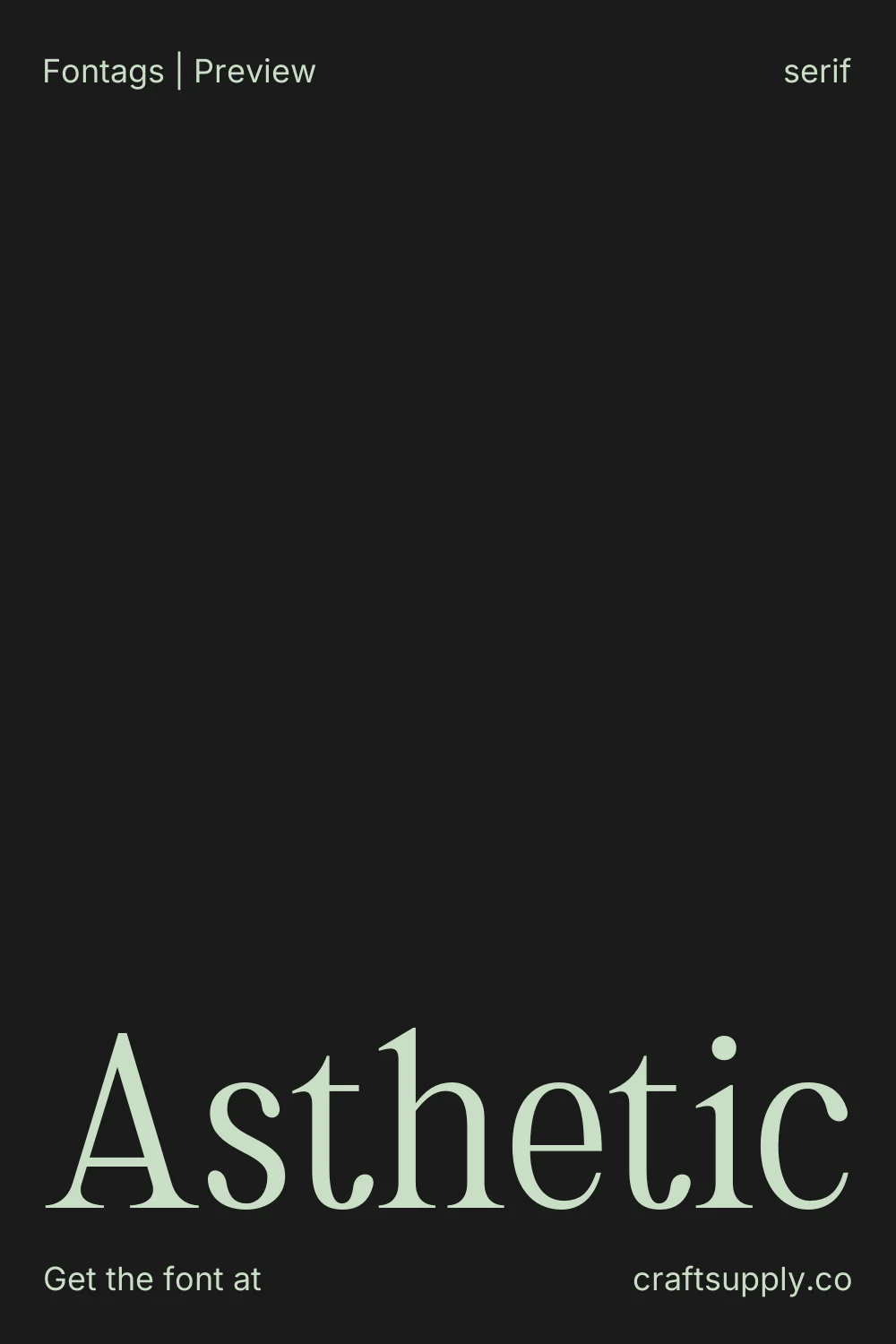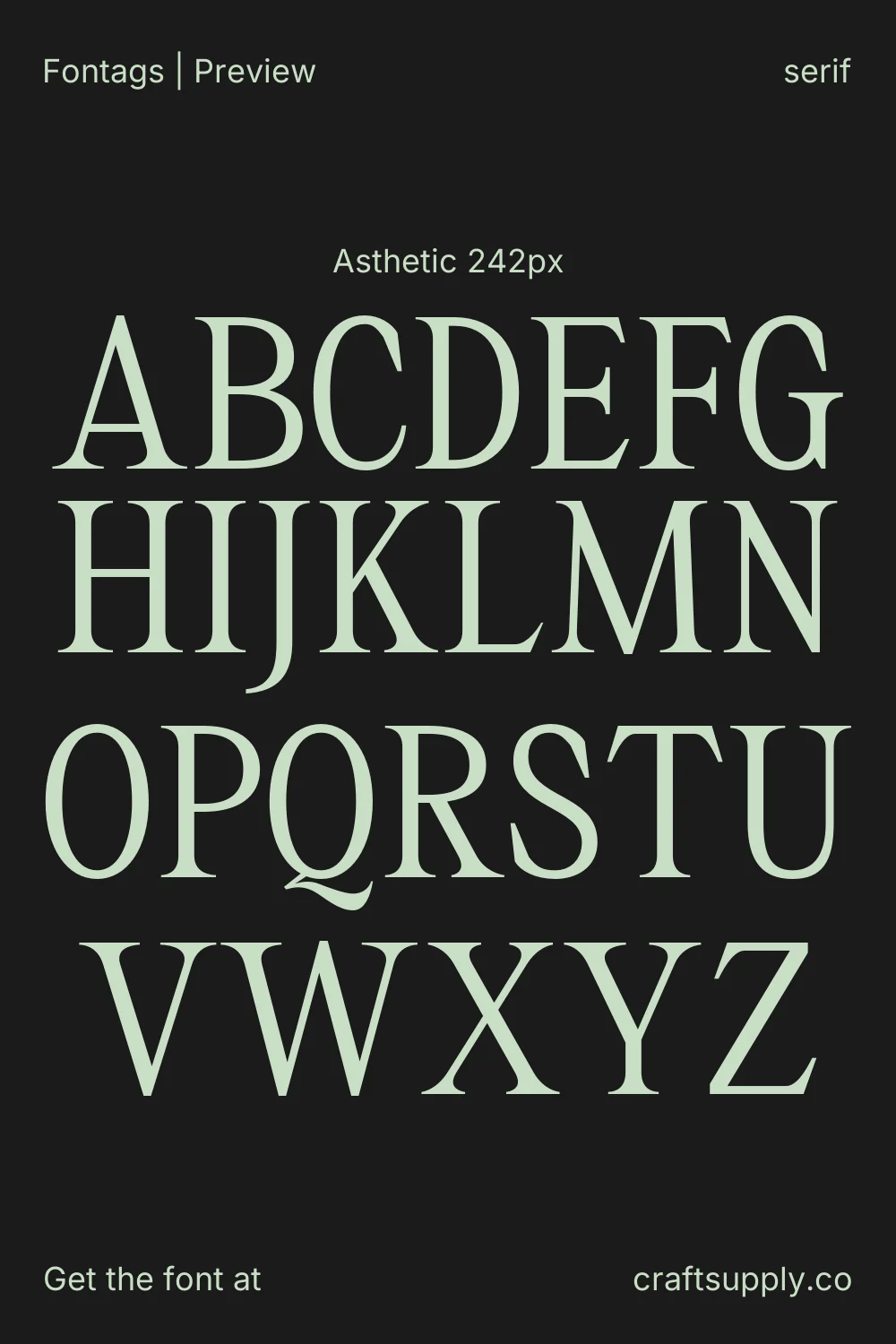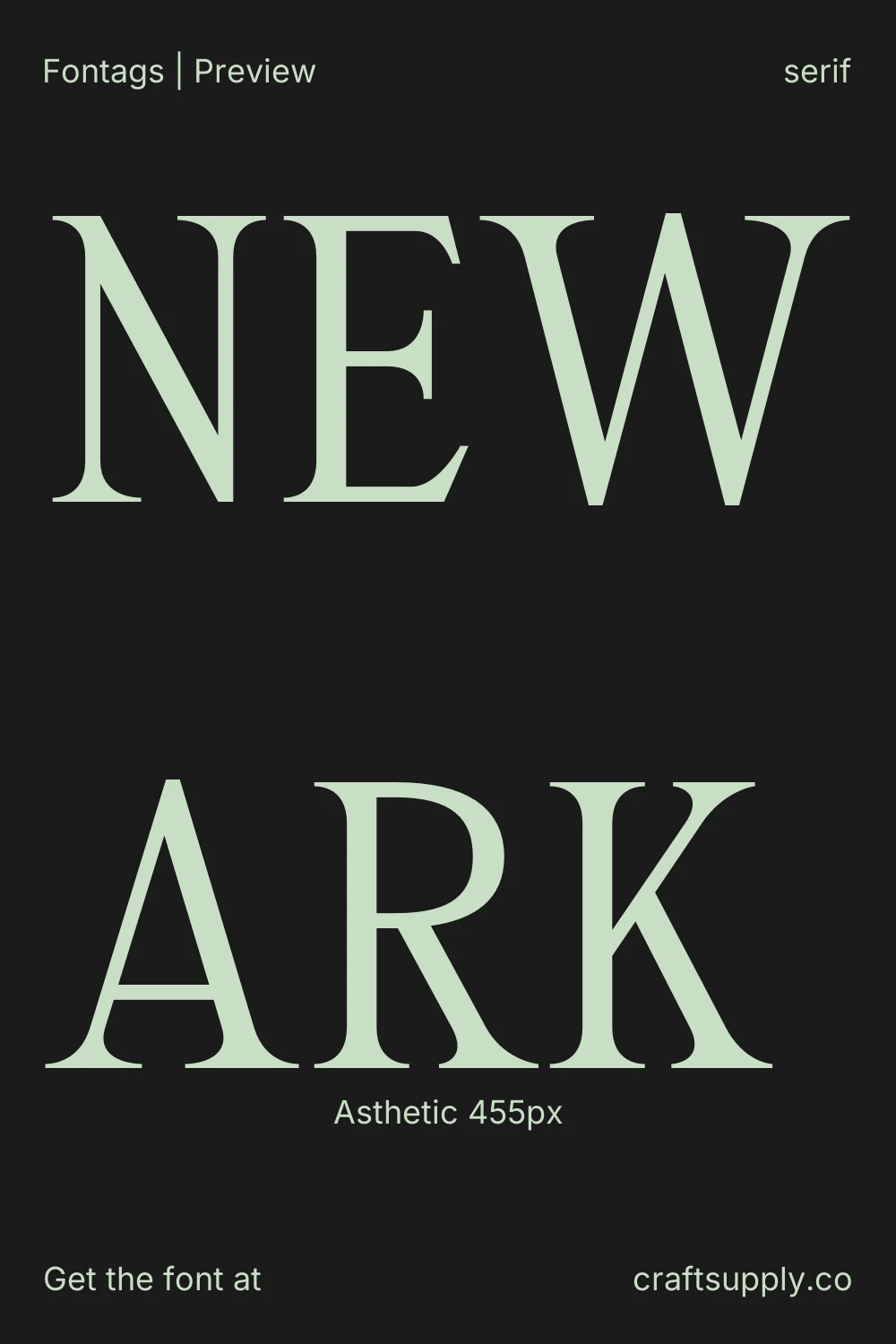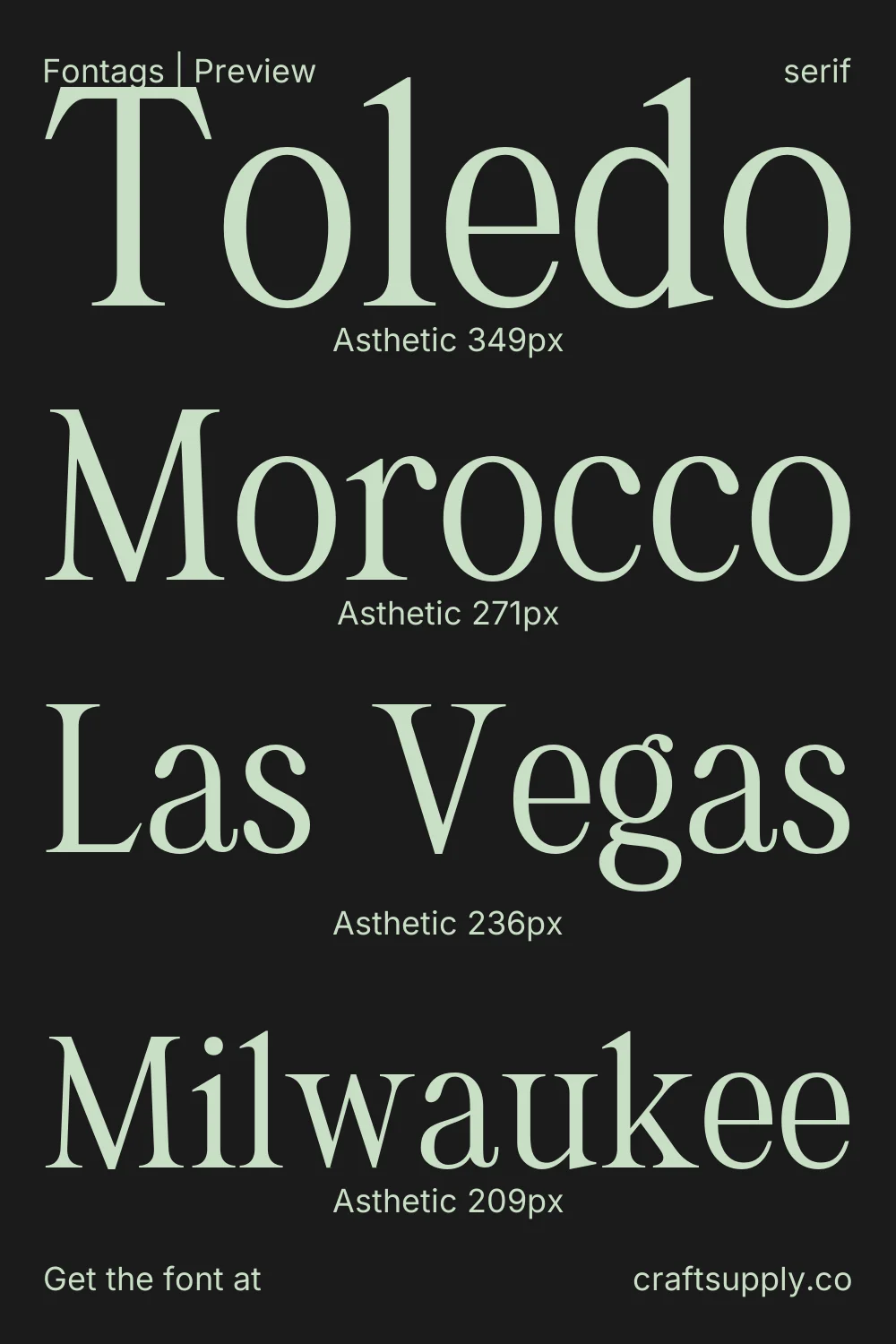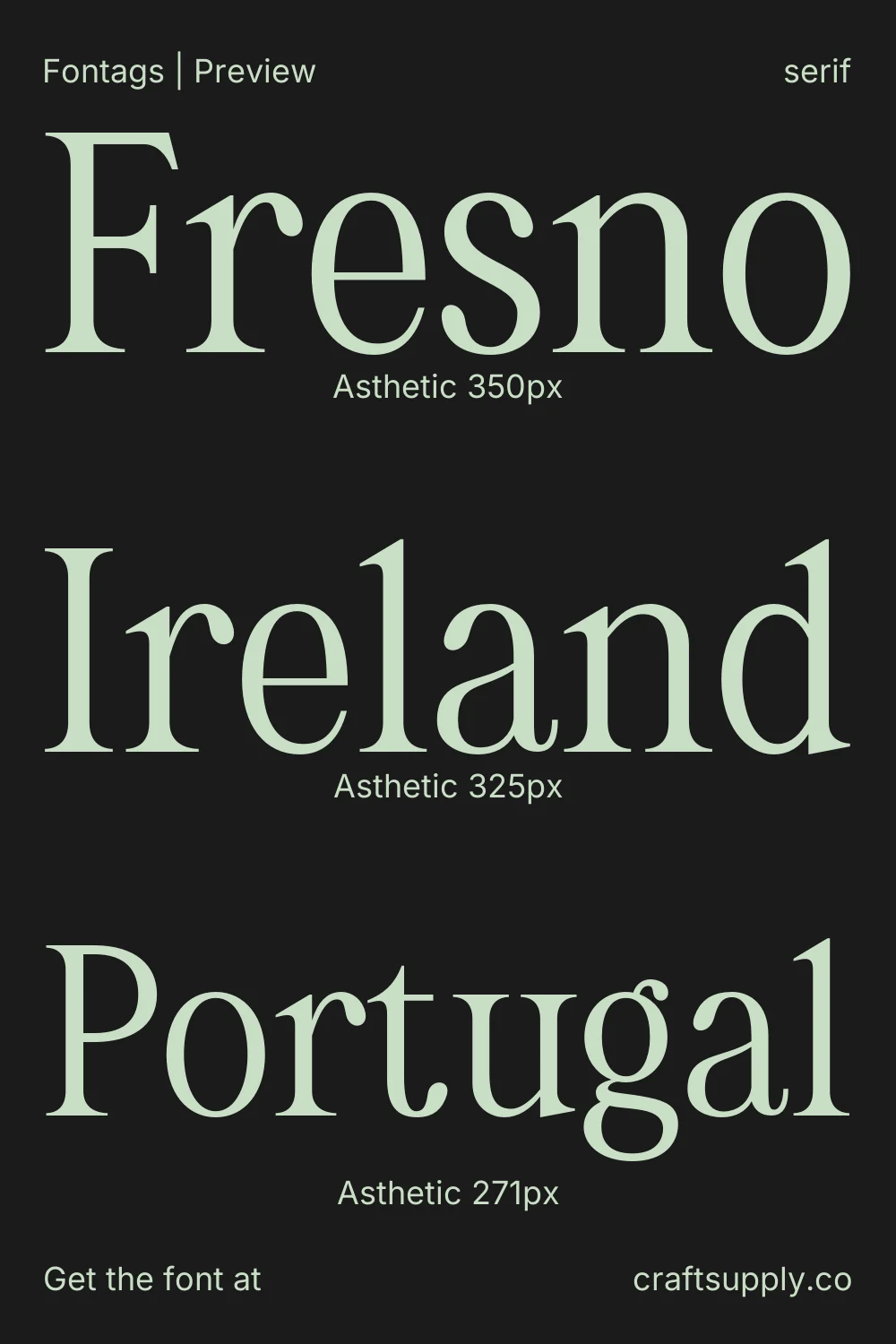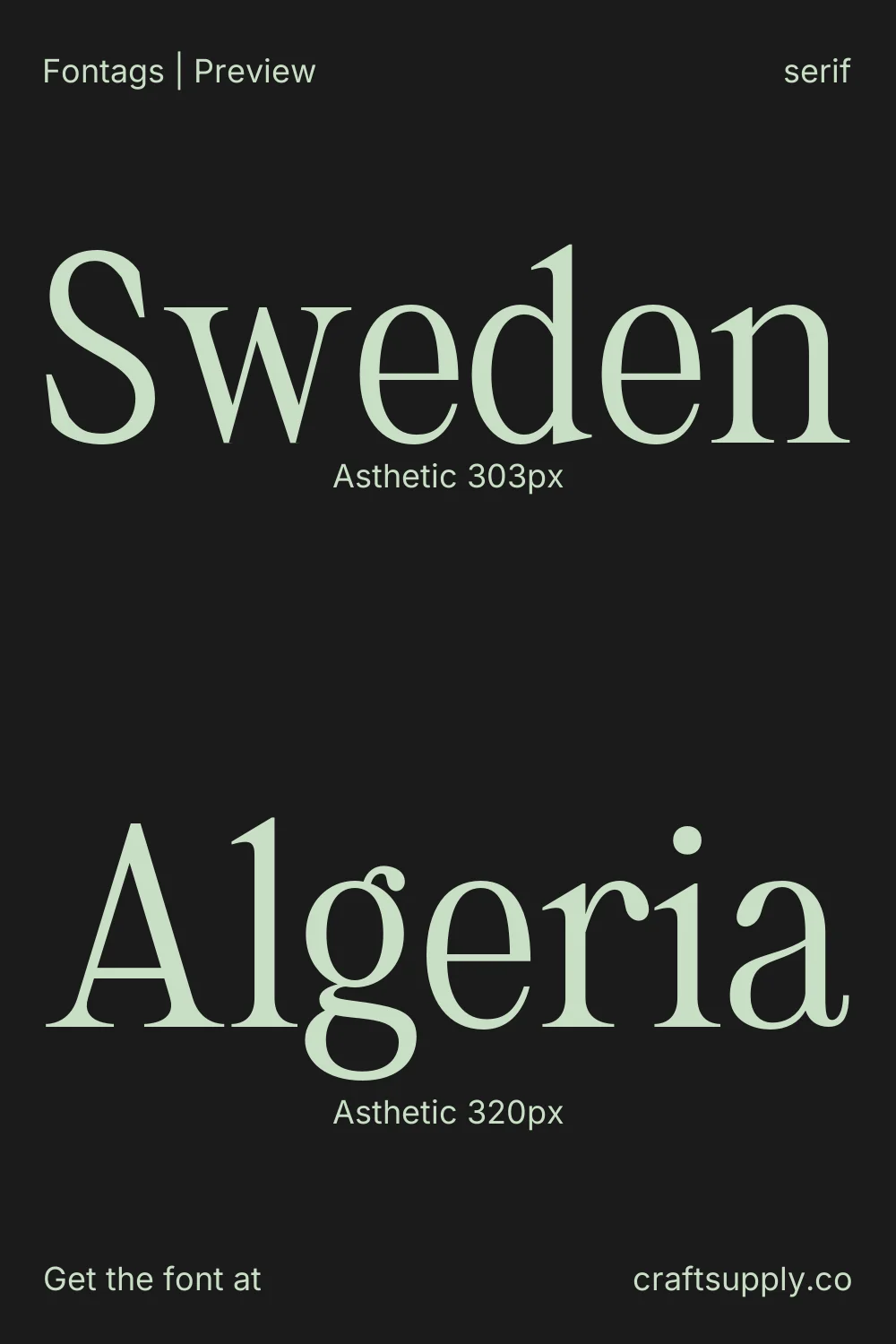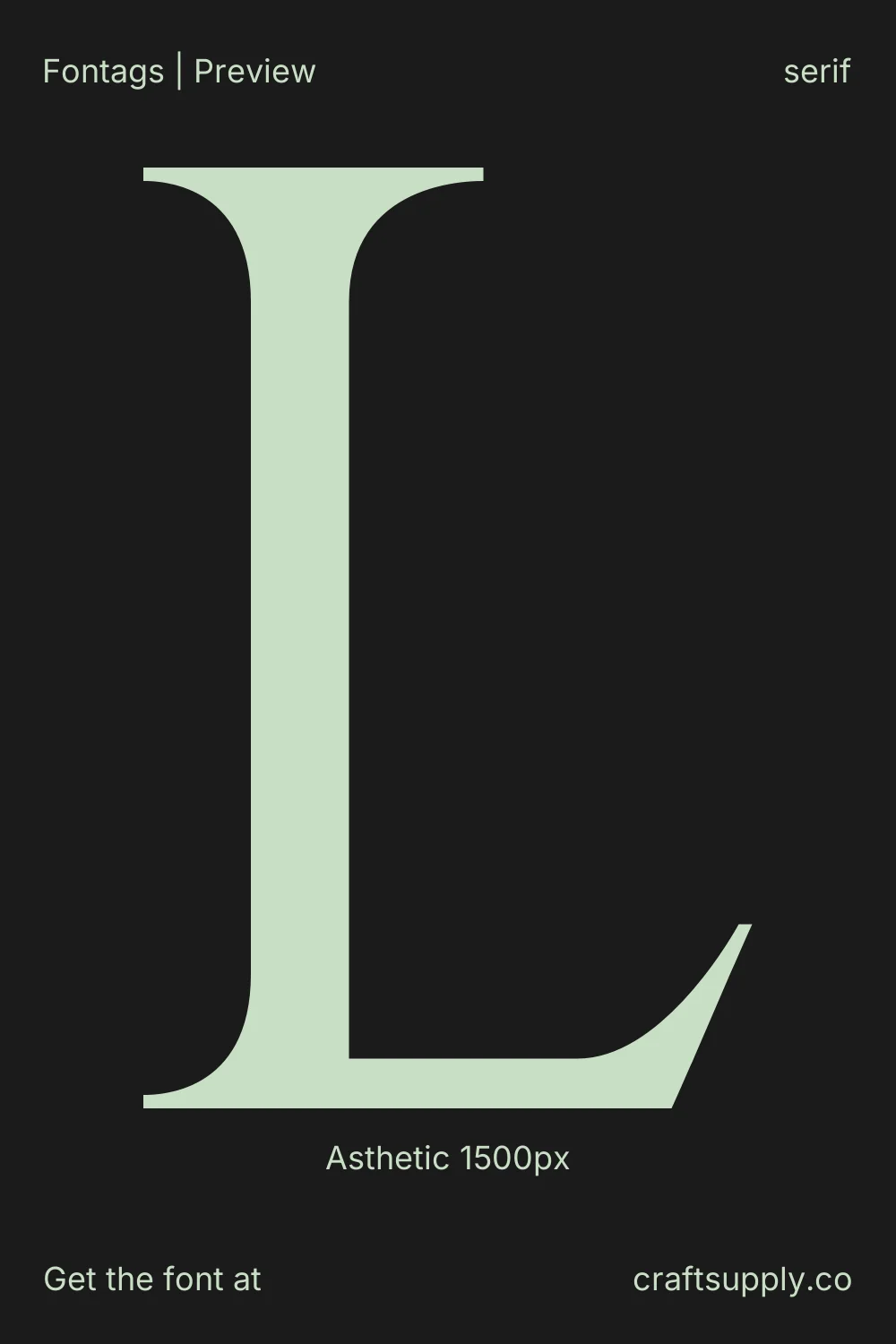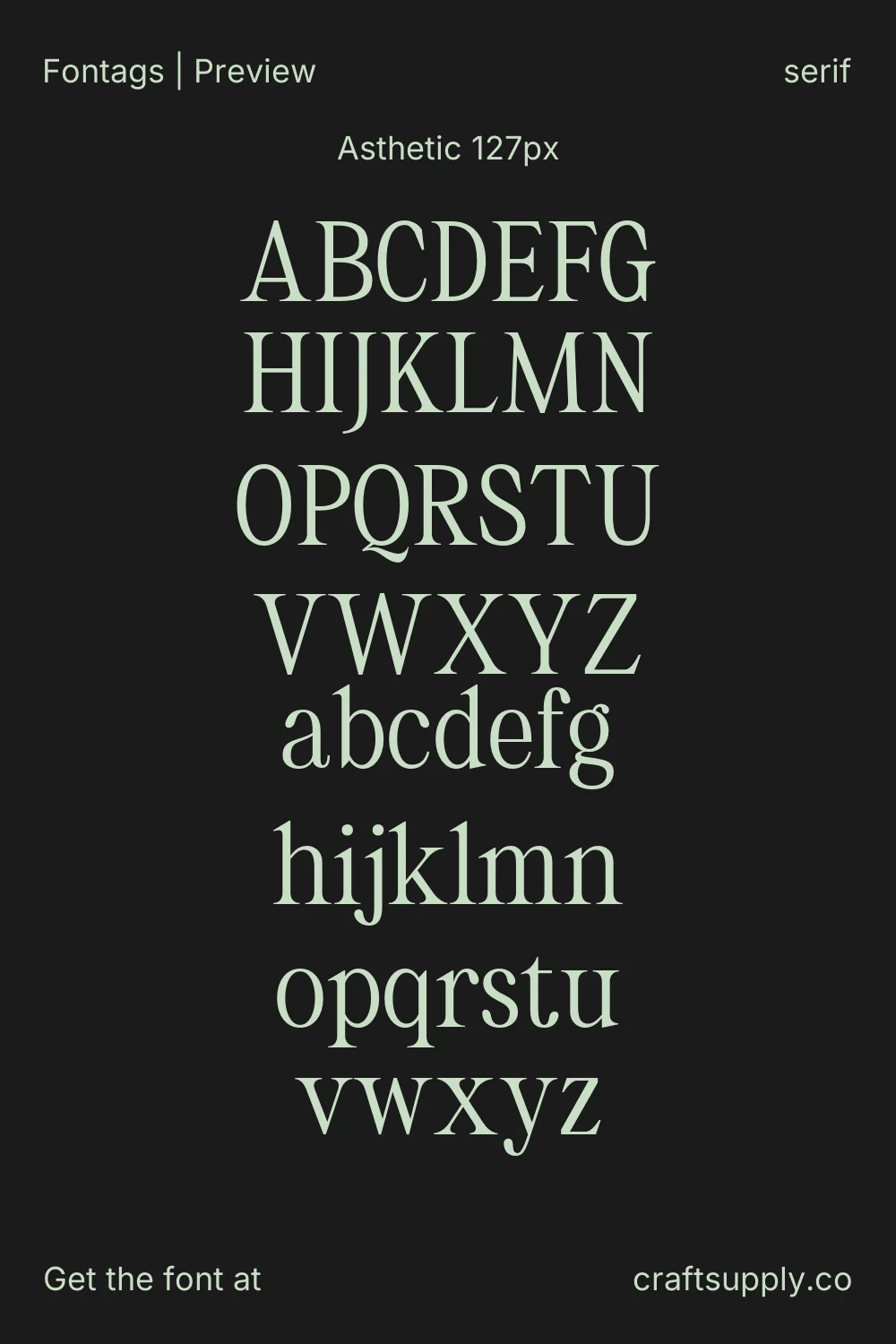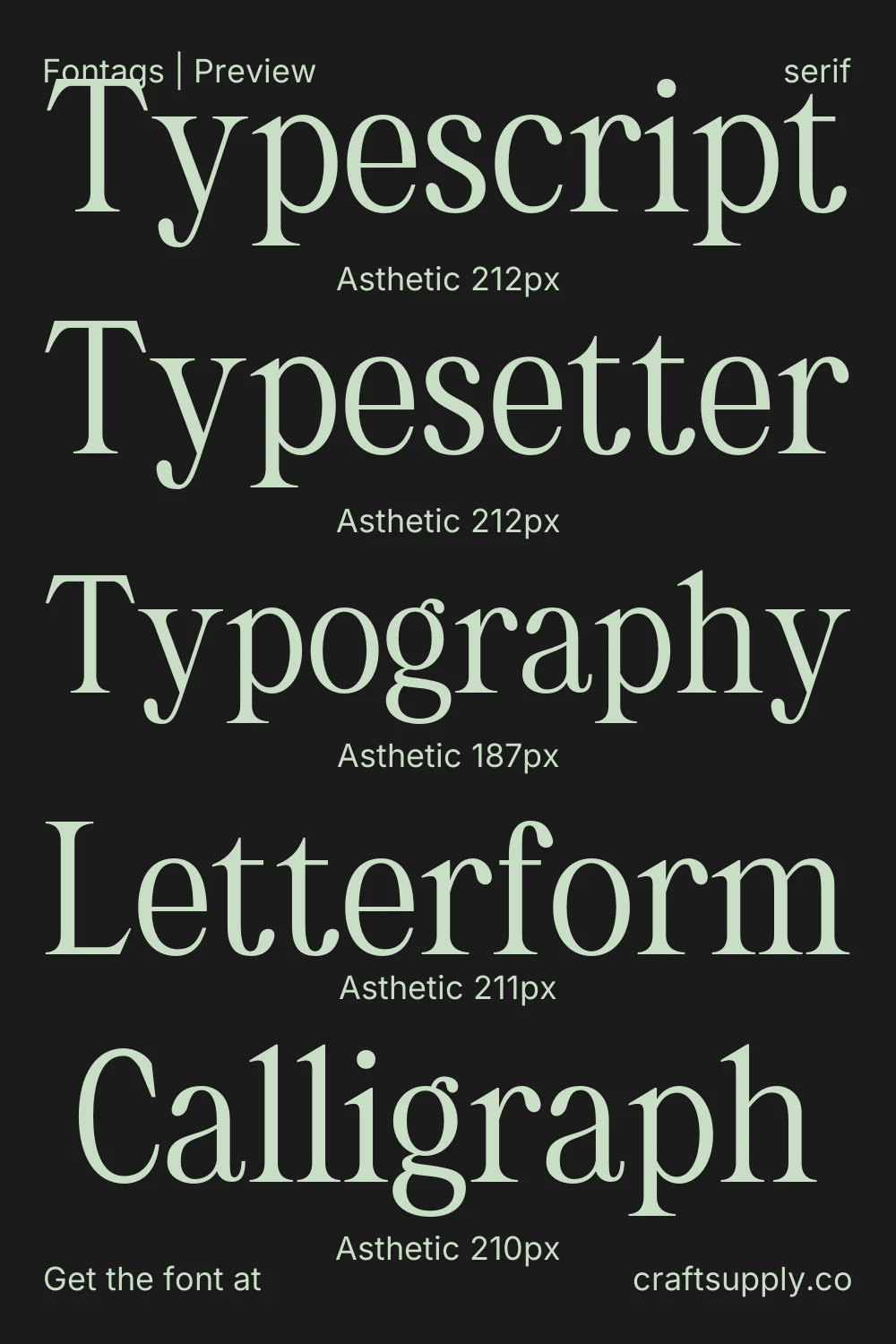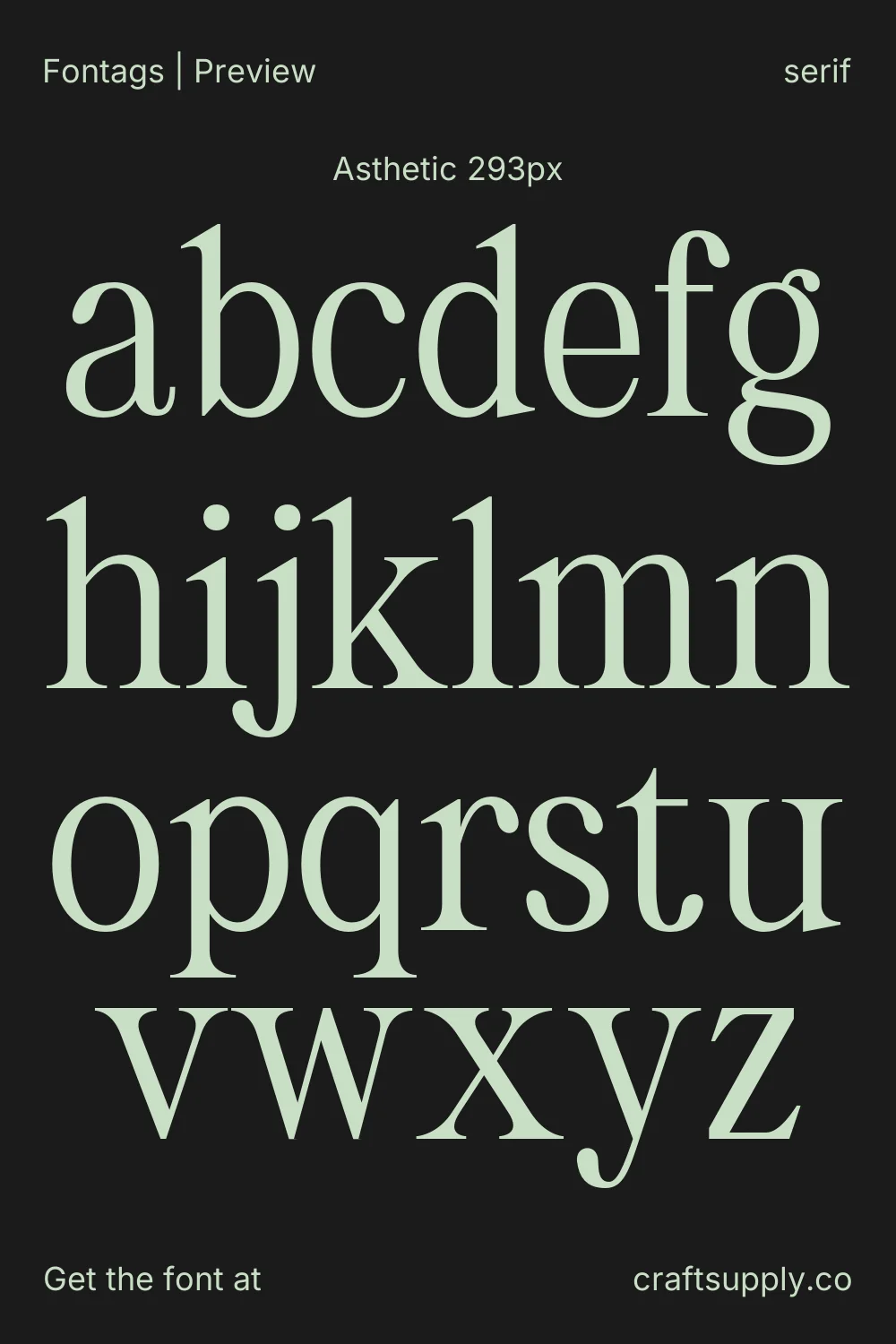
Asthetic
Asthetic is a nostalgic serif font that captures the timeless elegance of bygone eras with classic lines and vintage charm. Its enduring style works beautifully for greeting cards, packaging, brand identity, and posters where a retro aesthetic is desired. The family includes regular and italic weights multilingual support PUA encoding.